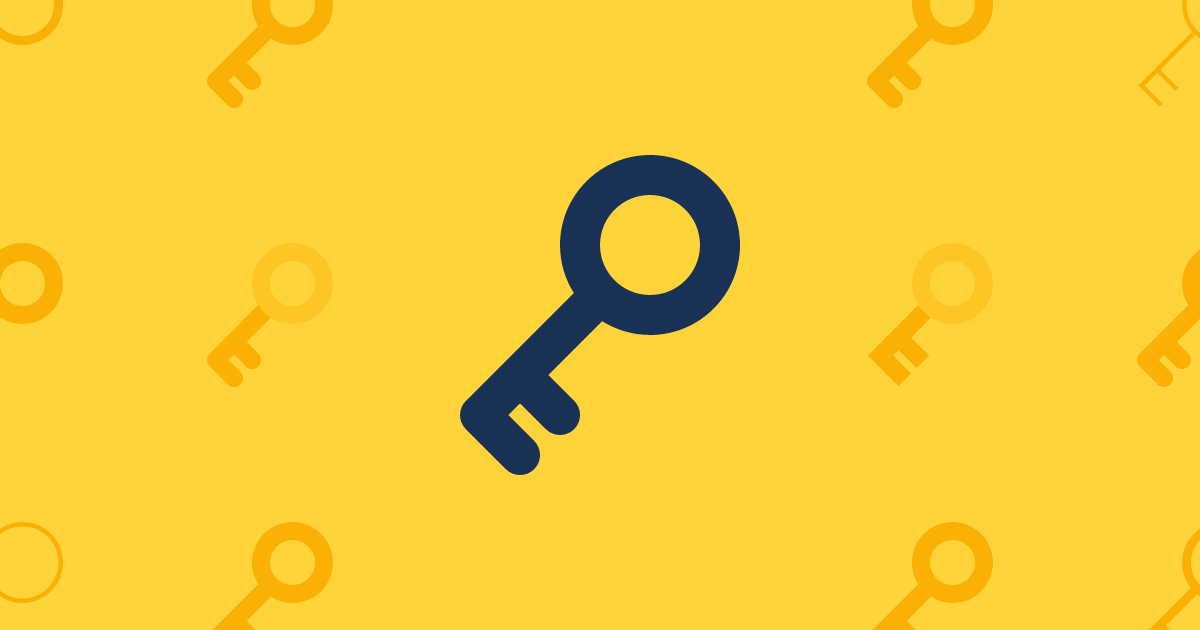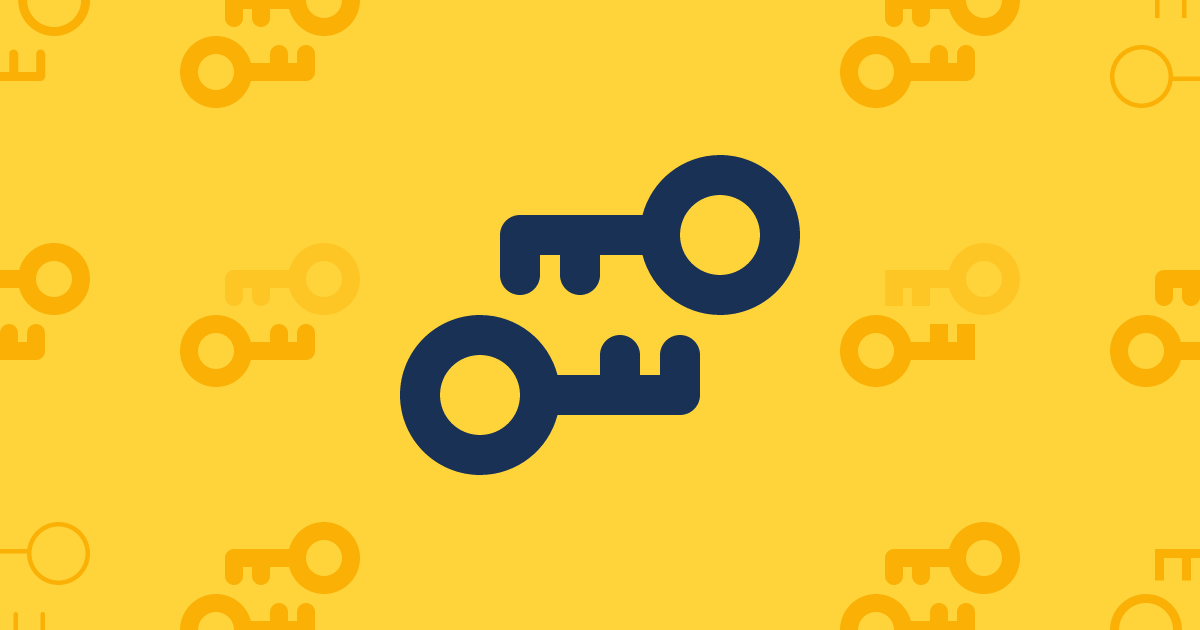
Font Awesome Key . Make a bold statement in small sizes. Key icon in the version 5 solid style. Available now in font awesome pro. To improve web accessibility, we recommend using aria. The iconic svg, font, and css toolkit. Upload your own key icon to a kit and easily use it just like it an official font awesome icon! The table below shows the free font awesome 5 security icons:
The table below shows the free font awesome 5 security icons: Make a bold statement in small sizes. Available now in font awesome pro. The iconic svg, font, and css toolkit. Key icon in the version 5 solid style. Upload your own key icon to a kit and easily use it just like it an official font awesome icon! To improve web accessibility, we recommend using aria.
Font Awesome Key Upload your own key icon to a kit and easily use it just like it an official font awesome icon! Key icon in the version 5 solid style. Make a bold statement in small sizes. The iconic svg, font, and css toolkit. The table below shows the free font awesome 5 security icons: Upload your own key icon to a kit and easily use it just like it an official font awesome icon! Available now in font awesome pro. To improve web accessibility, we recommend using aria.